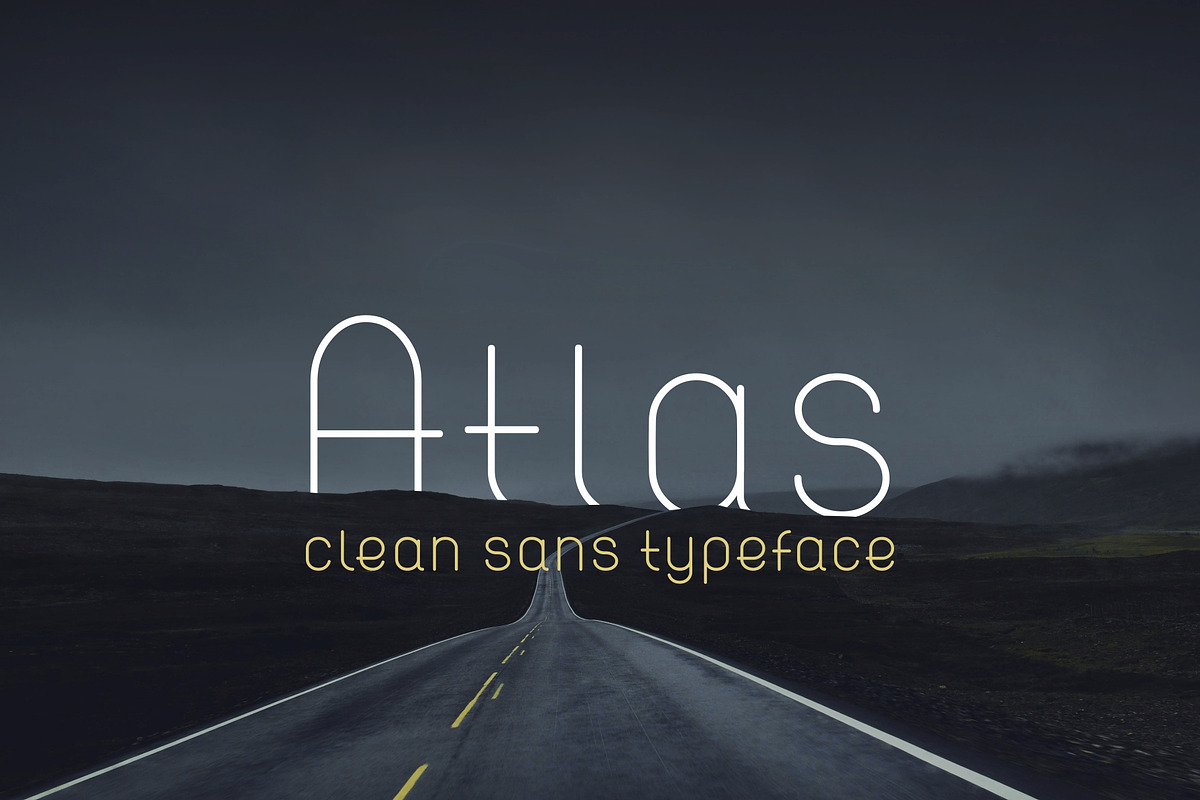
Atlas. Clean modern sans font.
ATLAS typeface - clean and modern sans serif font. That boasts clean lines, smooth edges, and three weights. Ideal for logo, social media, print design, weddings, invitations, magazines and all you want!
Three weights:
- ATLAS Regular. Strong and edgy
- ATLAS Light. Delicate and elite
- ATLAS Italy. Simple and elegant
- Uppercase Characters
- Small Caps
- Basic Symbols